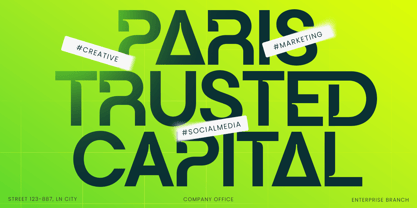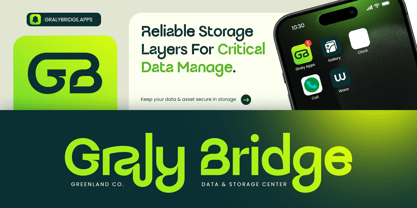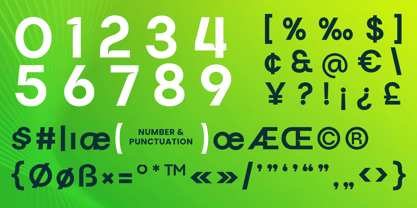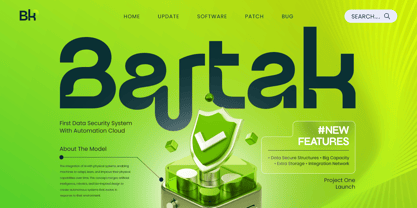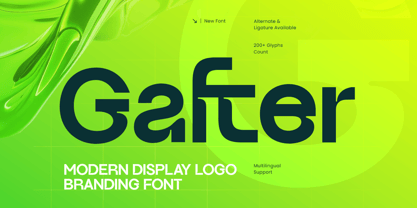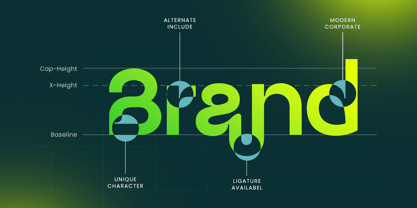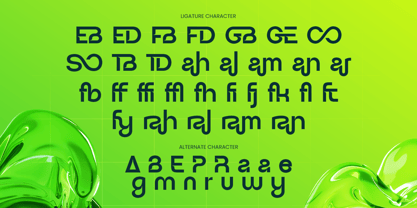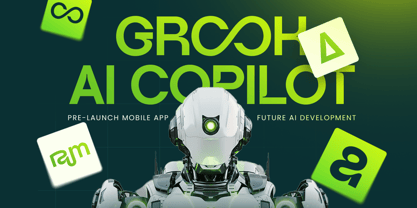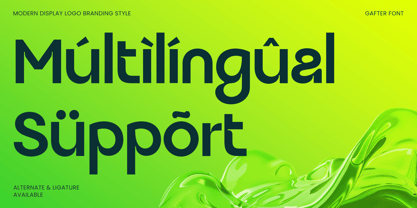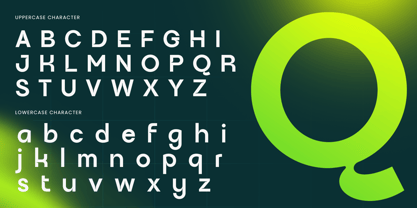
GAFTER is a modern display logo branding font designed to make a strong and memorable impression. With its bold structure, stylish details, and contemporary character, GAFTER delivers a clean yet distinctive look that works beautifully for modern visual identities. It carries a confident presence that feels professional, creative, and highly adaptable for standout branding needs.
Perfect for logos, brand identity, packaging, headlines, posters, and social media graphics, GAFTER helps designers build visuals that feel sharp and polished. Its display-driven style makes it especially effective for fashion branding, lifestyle products, creative agencies, premium packaging, and editorial layouts that need a modern logo font with strong visual impact.
As a branding-focused display typeface, GAFTER offers the right balance between readability and personality. Whether you are creating a sleek wordmark, a stylish product label, or a bold campaign headline, GAFTER gives your project a modern edge and a professional finish across both digital and print media.
GAFTER – Modern Display Branding Features
Bold modern display character set
Designed for logos, branding, and headline applications
Clean and stylish letterforms with strong visual impact
Ideal for packaging, posters, social media, and editorial layouts
Includes uppercase, lowercase, numerals, and punctuation
Great for digital and print projects
OpenType features for creative typographic flexibility
Multilingual Support